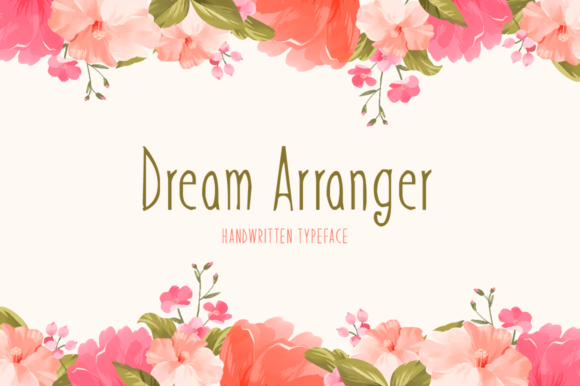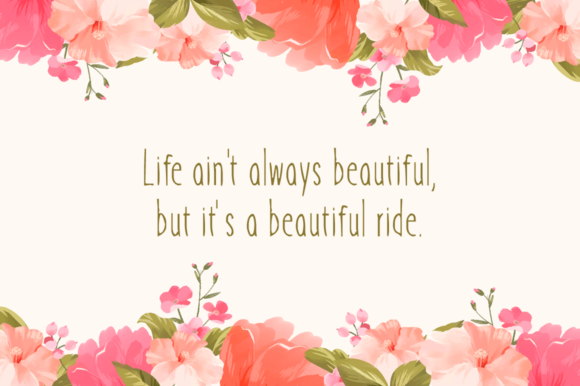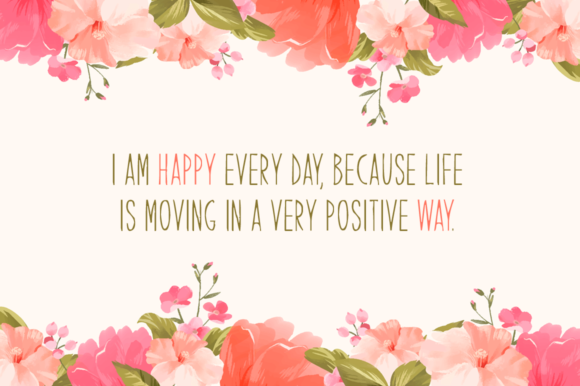
Dream Arranger Font
About Dream Arranger Font
Dream Arranger is a cute handwritten font. It is perfectly suited for stationery, logos, t-shirt, paper, print design, website header, photo frame, flyer, music cover, posters and much more.